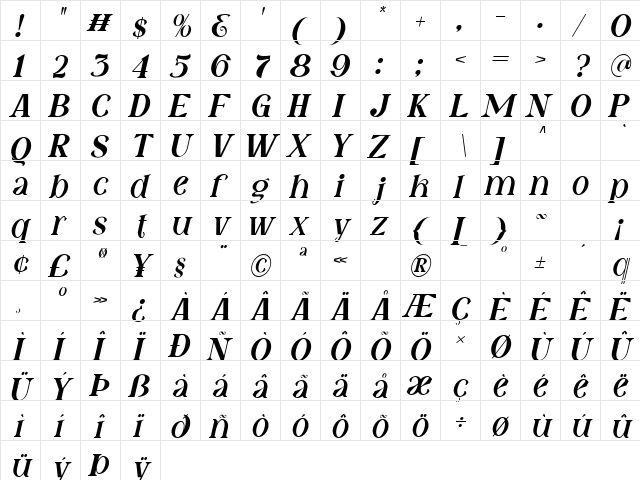
Fatin Gengky Italic
Design Context for Fatin Gengky Typeface
Fatin Gengky takes a measured approach to typography — its balanced proportions and neutral character make it a reliable workhorse for both digital and print work. The dynamic lean of this cut emphasises speed and emphasis in any layout.
Pro Tip: Try Fatin Gengky for annotation and caption copy alongside an upright companion — the contrast in angle creates a dynamic but ordered typographic system.